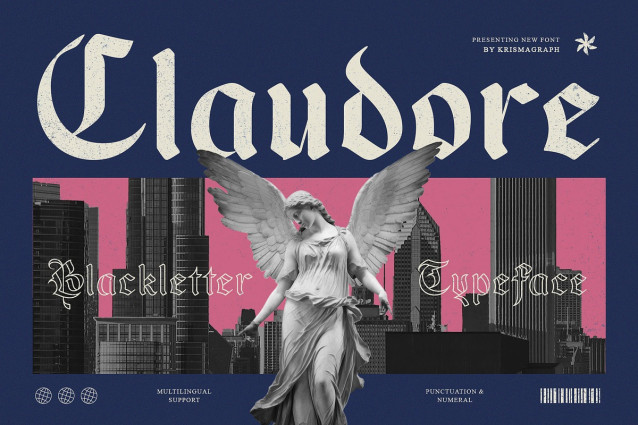
Claudore Font
Claudore Font is a refined take on classic blackletter style, crafted for designers who want elegance with a rebellious edge. With textured details and balanced proportions, it strikes the perfect harmony between heritage-inspired calligraphy and modern design needs. Perfect for branding, packaging, music artwork, book covers, and fashion campaigns, Claudore comes with multilingual support and complete punctuation. A timeless typeface that elevates any design with bold personality and style.